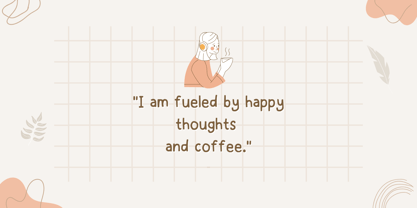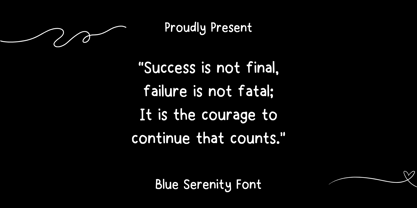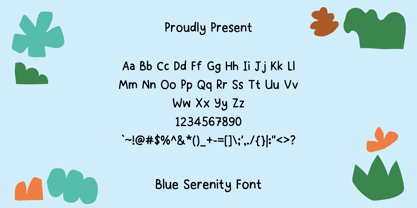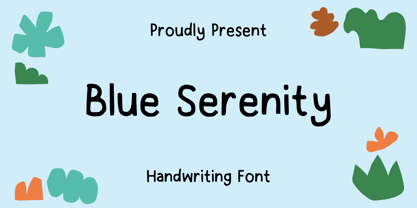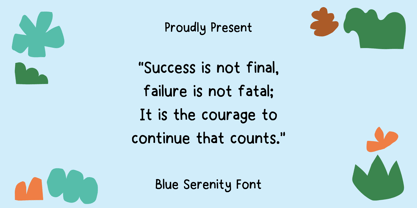
Blue Serenity
by Sidkia Fonts
The Blue Serenity Font Family was designed by and published by Sidkia Fonts. Blue Serenity contains 1 styles. More about this family
Blue Serenity font is a regular cute and simple handwriting font. This font is a little neat and very suitable for use in your designs, your notes, quotes, or even for your invitations and flyers.